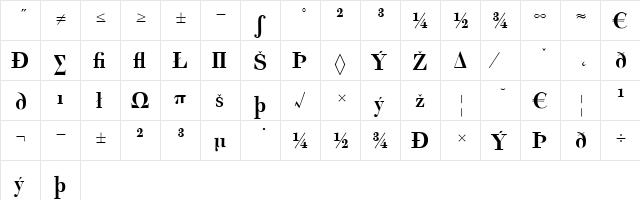
Acanthus Regular
Design Context for Acanthus Typeface
Acanthus takes a measured approach to typography — its balanced proportions and neutral character make it a reliable workhorse for both digital and print work.